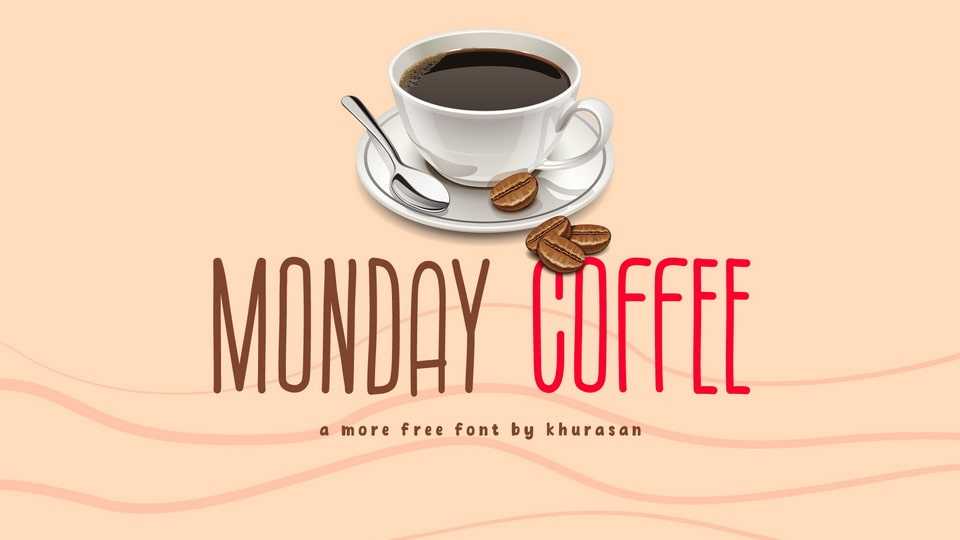
Download Monday Coffee font, a tall and skinny hand-drawn typeface that adds a touch of elegance and uniqueness to your designs. Monday Coffee font is all about making a statement with its slender and stylish appearance.